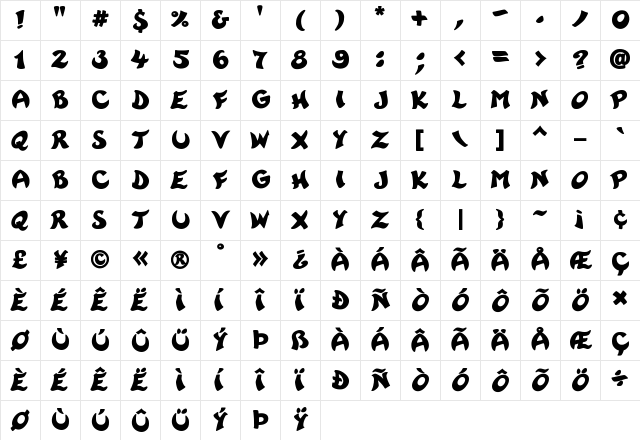
Complete Rayman 2 Bold Bold glyph index. Displaying only characters natively supported by Rayman 2 Bold Bold font.
Rayman 2 Bold is a composed and adaptable typeface that performs quietly and consistently across a wide range of design contexts. Its bold stroke weight gives it real presence on the page.